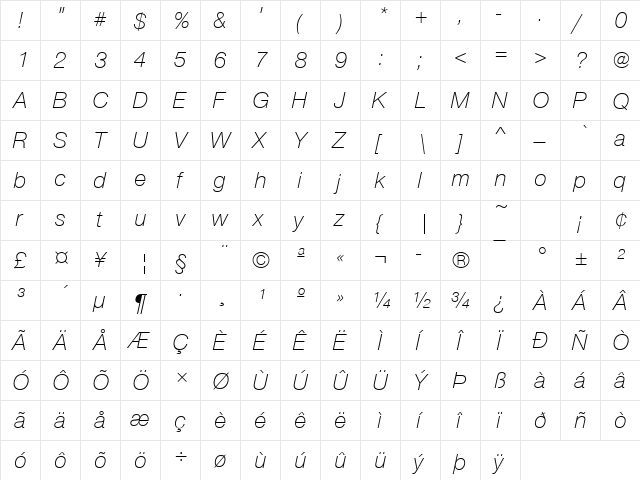
NimbusSanNovTLig Italic
Design Context for NimbusSanNovTLig Typeface
NimbusSanNovTLig is a composed and adaptable typeface that performs quietly and consistently across a wide range of design contexts. The dynamic lean of this cut emphasises speed and emphasis in any layout.
Pro Tip: Try NimbusSanNovTLig for annotation and caption copy alongside an upright companion — the contrast in angle creates a dynamic but ordered typographic system.